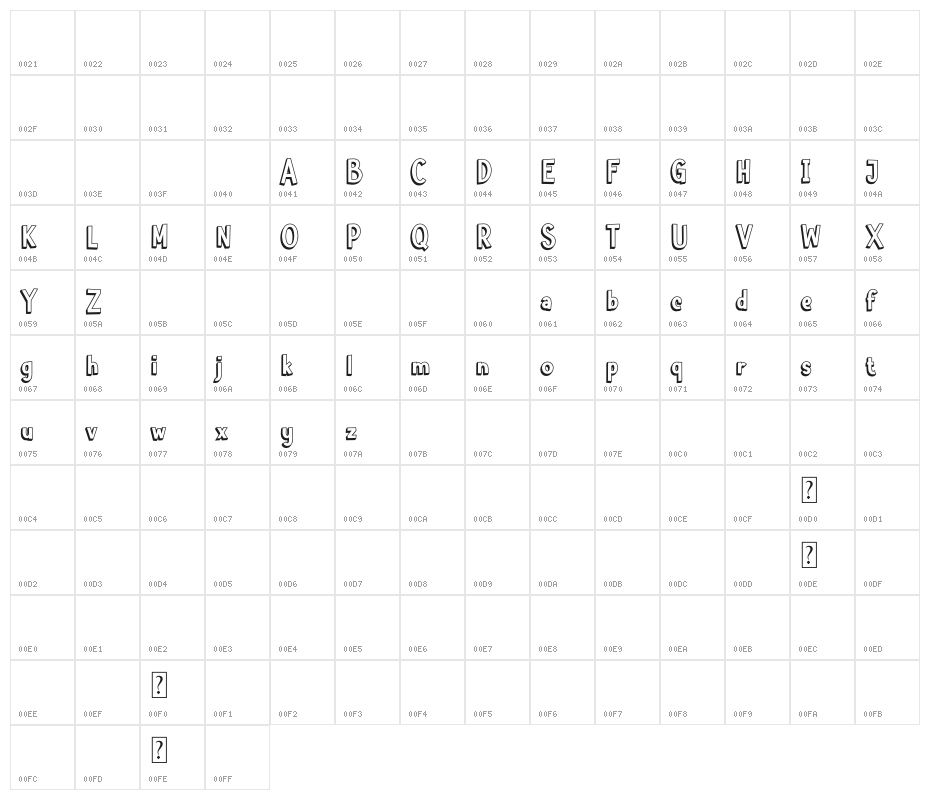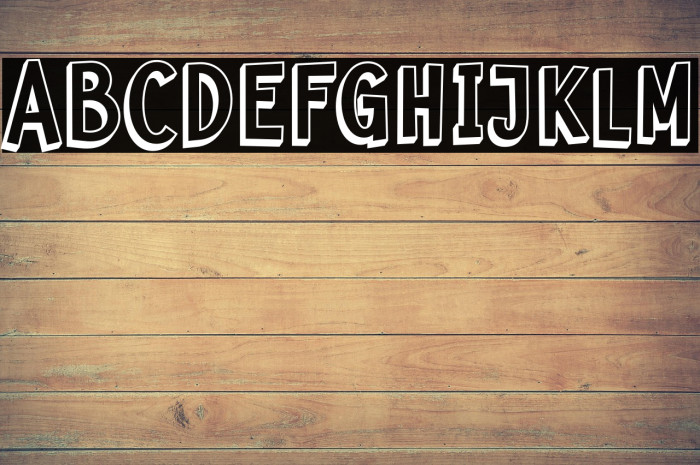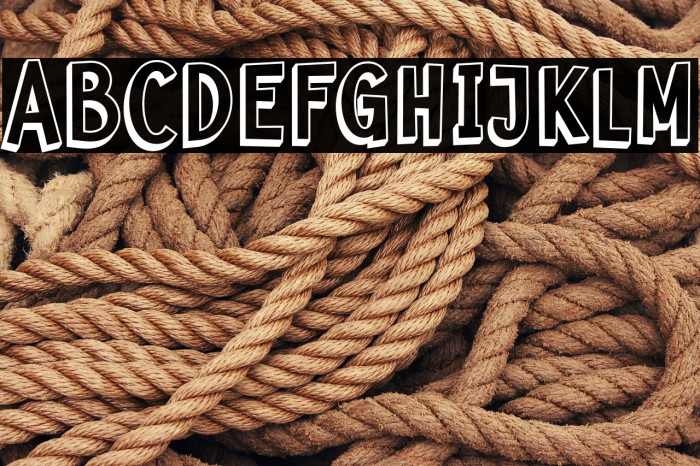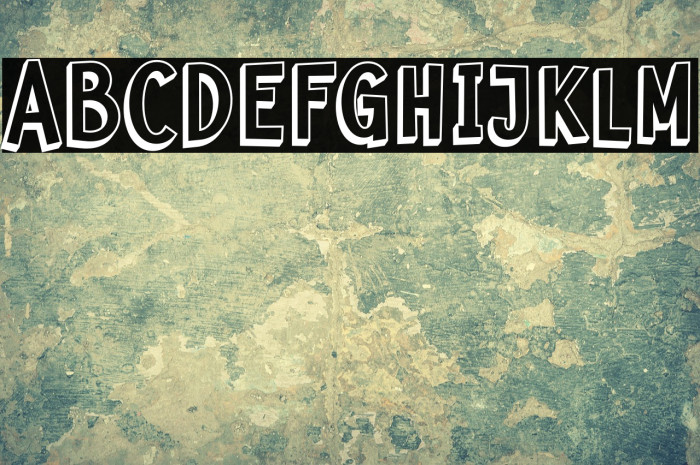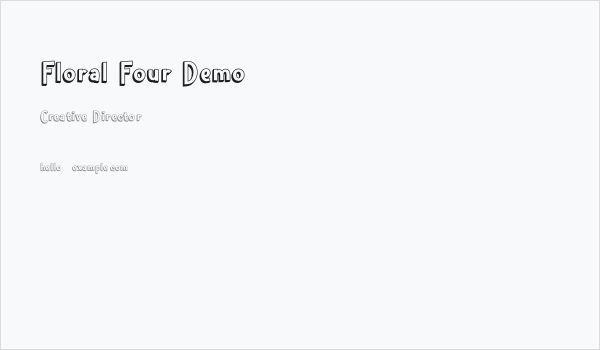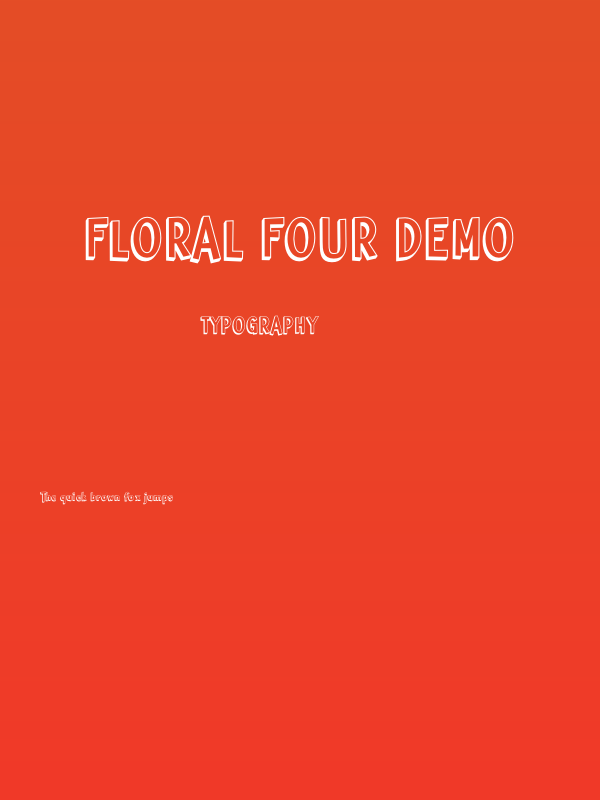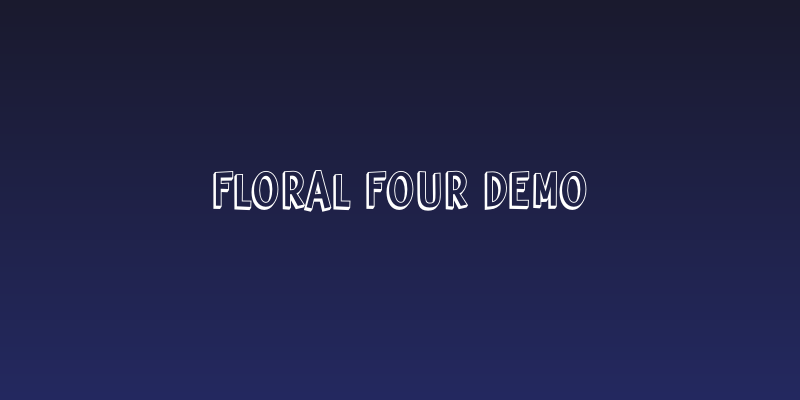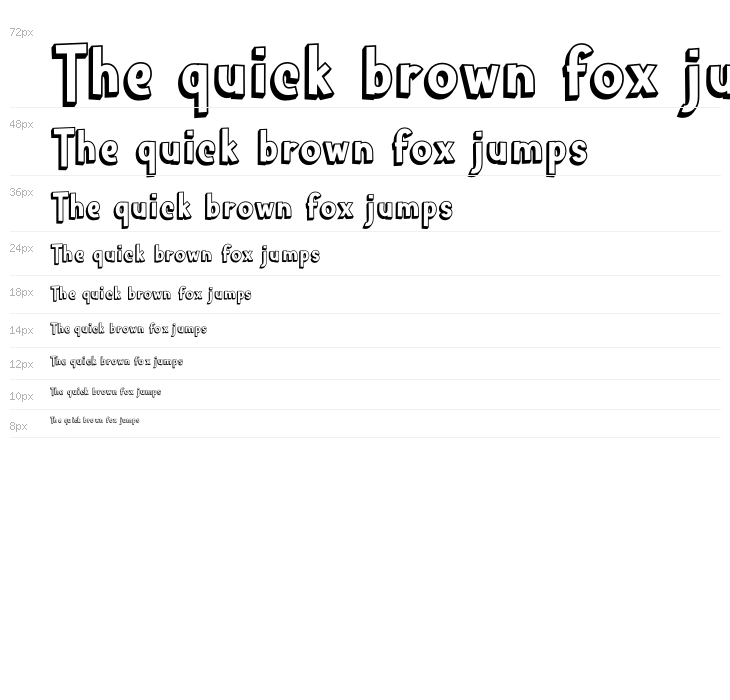
Floral Four Demo Font
Floral Four Demo Description
This font features a bold, playful style with a three-dimensional effect created by a shadow outline. The uppercase and lowercase letters maintain a consistent thickness, giving a uniform appearance. The characters have a slightly rounded edge, contributing to a friendly and approachable look. The font's design is reminiscent of comic book lettering, making it ideal for projects that require a fun and informal tone. The spacing between characters is normal, ensuring readability while maintaining its decorative appeal. This font is suitable for creative projects that aim to capture attention with its unique and engaging style.
| Overall Style | Playful, Comic |
| Proposed Projects | Comic books, children's books, posters, playful branding, and event invitations. |